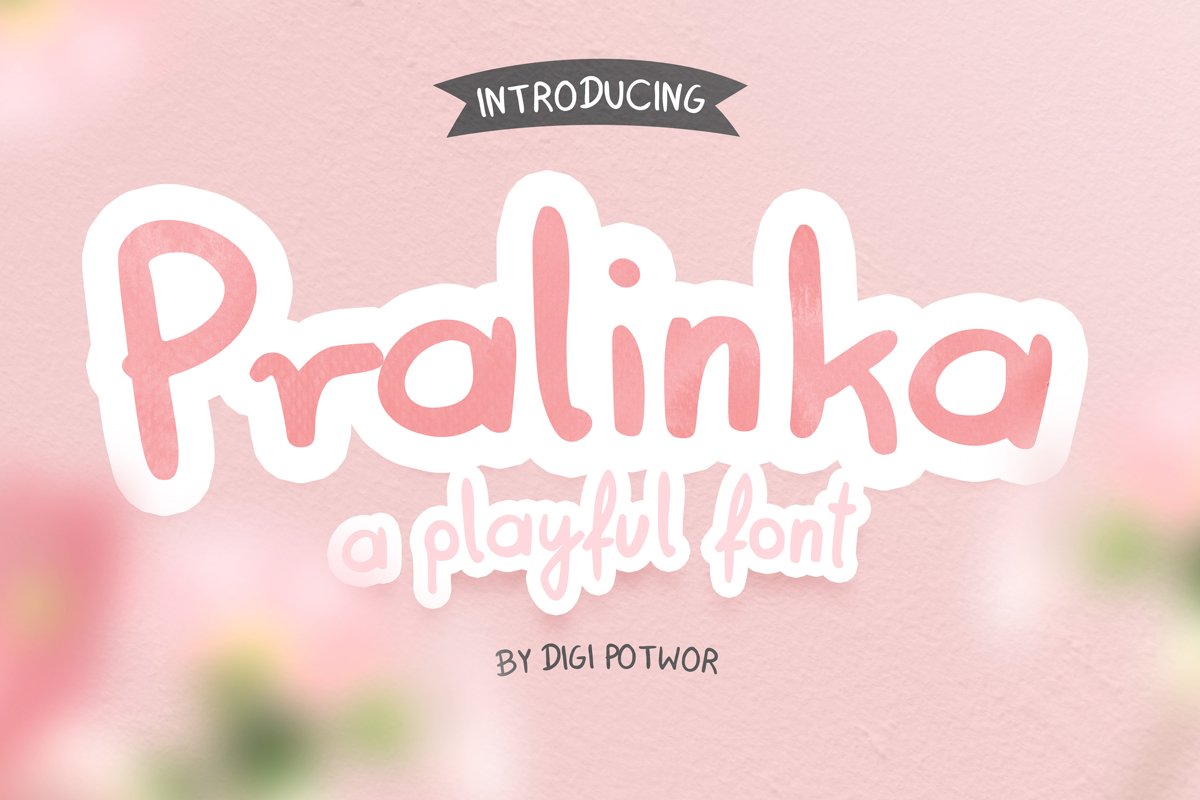
Pralinka Font
Introduce Pralinka font is a simple and cute typeface. Just perfect for all your humorous and lovely projects, headings, flyer, greeting cards, T-shirts, logos and much more.
This font includes 200 glyphs. I also created some ligatures (3) and variants (52) for a few characters.
Pralinka Font